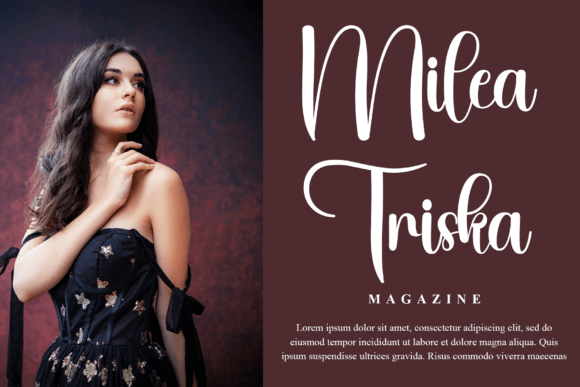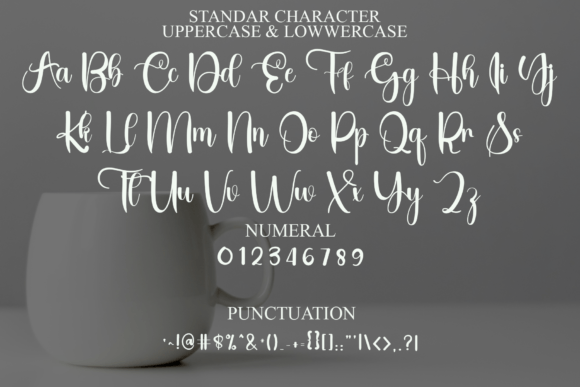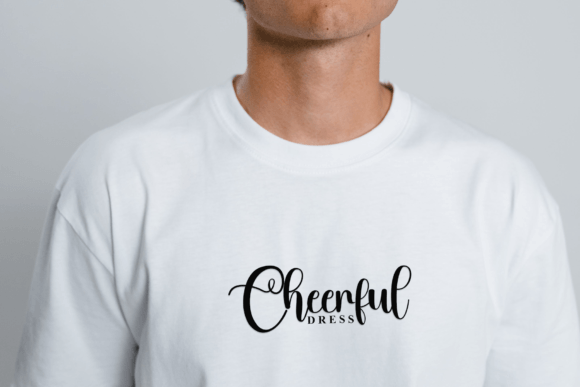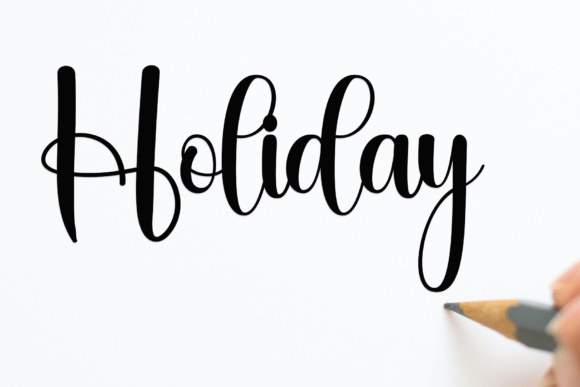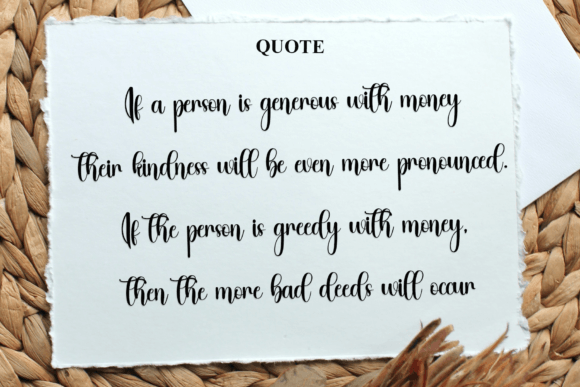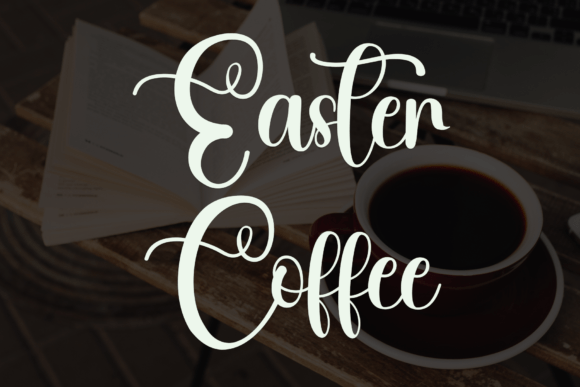
Discover the Elegance of Authentic Font: A Timeless Calligraphy-Inspired Typeface
In the world of typography, a font can make all the difference in the aesthetic and feel of a design project. For designers and crafters seeking a typeface that exudes elegance, sophistication, and a touch of classic charm, the Authentic Font is an exceptional choice. This stylish handwritten font is imbued with a contemporary atmosphere, impeccable form, and a balanced, varied design that enhances the beauty of any project it is applied to.
Inspiration from Timeless Classic Calligraphy
The Authentic Font draws its inspiration from timeless classic calligraphy, bringing a sense of tradition and refinement to the modern design landscape. This connection to classic calligraphy is evident in the font’s fluid strokes, elegant ligatures, and the overall sense of harmony it conveys. Each character is crafted with precision and attention to detail, ensuring that the font not only pays homage to its calligraphic roots but also meets the demands of contemporary design.
Key Features of Authentic Font
• Contemporary yet Classic: The Authentic Font strikes the perfect balance between modern style and classic elegance, making it versatile for a wide range of design projects.
• PUA Encoded: Being PUA (Private Use Area) encoded, this font allows easy access to all the amazing glyphs and ligatures, providing designers with a rich palette of typographic elements to enhance their work.
• Balanced and Varied: The font’s design is carefully balanced and varied, ensuring that it brings an element of beauty and sophistication to any project.
• Impeccable Form: With a focus on impeccable form, the Authentic Font showcases flawless lines and curves, contributing to its high-end appearance.
Applications of Authentic Font
The versatility of the Authentic Font makes it suitable for a myriad of design applications. Whether you’re working on:
• Branding and Logos: The elegant and sophisticated nature of the font makes it ideal for creating memorable brand identities.
• Stationery and Invitations: Add a touch of class to your stationery, invitations, and greeting cards with the Authentic Font.
• Packaging: Elevate your product packaging with a font that communicates luxury and quality.
• Digital Media: From website headers to social media graphics, the Authentic Font can enhance the visual appeal of your digital content.
Why Choose Authentic Font?
Choosing the Authentic Font for your design projects comes with numerous benefits:
• Unique and Memorable: Stand out from the crowd with a font that is both unique and memorable.
• High Versatility: Its classic yet contemporary design makes it adaptable to various design needs and styles.
The Authentic Font is a stylish, elegant, and versatile typeface that brings a touch of timeless classic calligraphy to the modern design landscape. Its impeccable form, balanced and varied design, and PUA encoding make it an excellent choice for designers and crafters looking to add sophistication and beauty to their projects. Whether you’re aiming to create a memorable brand identity, design elegant stationery, or enhance digital media, the Authentic Font is a valuable tool in your design arsenal.